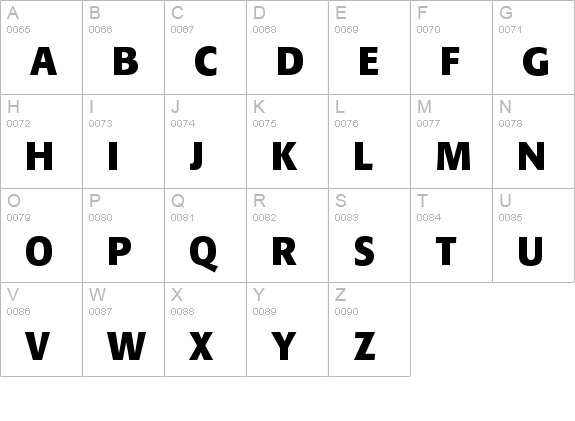
Formata Bold is a strong, high-contrast variant in the Formata typeface family \xE2\x80\x94 well suited to headlines, attention-grabbing titles, and strong calls-to-action.
Formata Bold is a modern and sleek typeface that exudes confidence and sophistication. Its bold and strong design makes it perfect for headlines, titles, and any other text that needs to make a statement. The clean lines and sharp edges give Formata Bold a contemporary and professional look that is sure to grab attention. And the best part? Formata Bold is available for free download at FontsMarket.com! Now you can elevate your designs with this stylish font without having to spend a dime. Whether you're working on a branding project, creating promotional materials, or designing a website, Formata Bold is a versatile and eye-catching choice that will make your text stand out. Download Formata Bold today and take your designs to the next level!